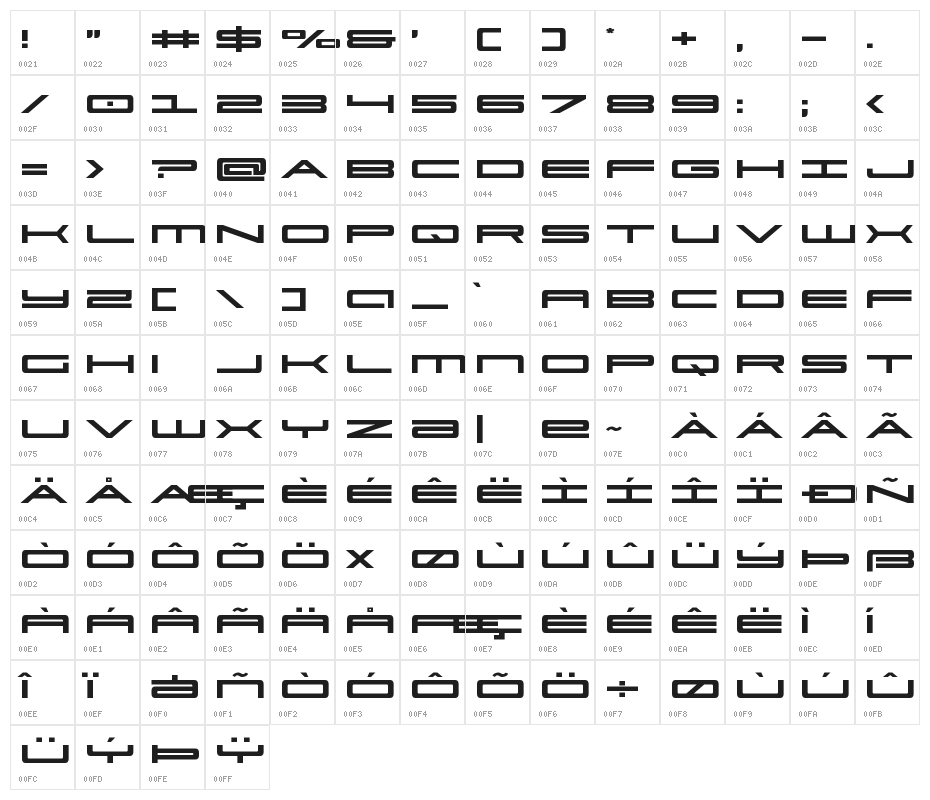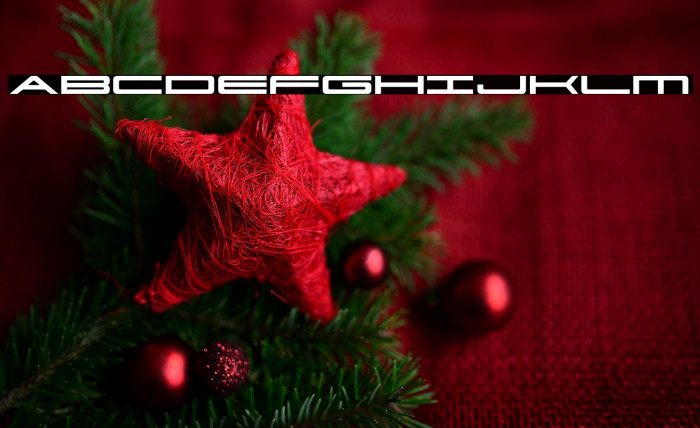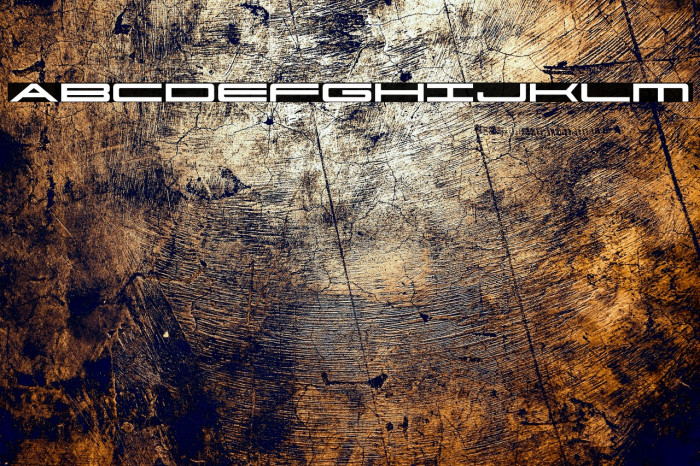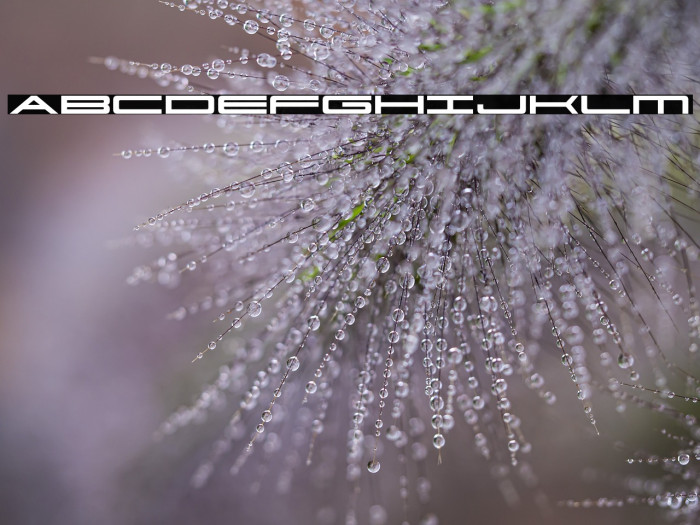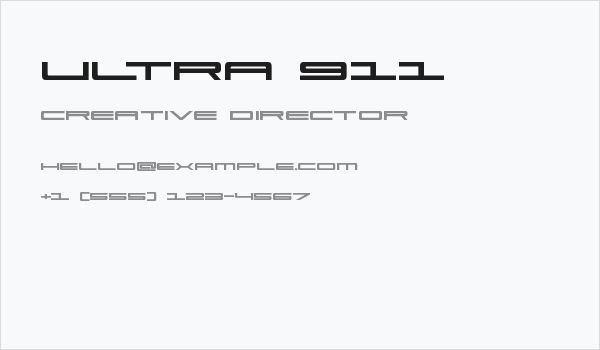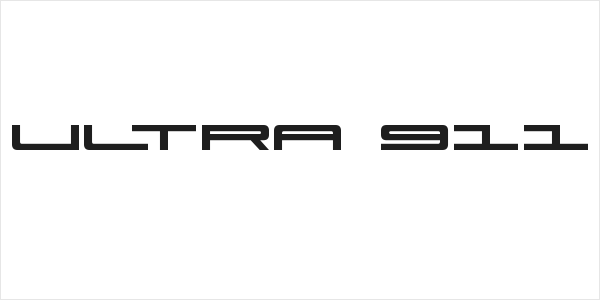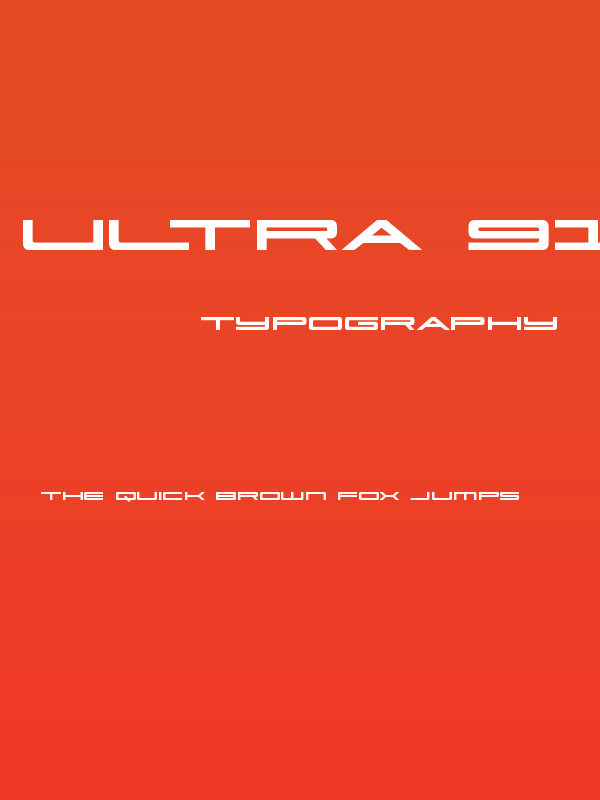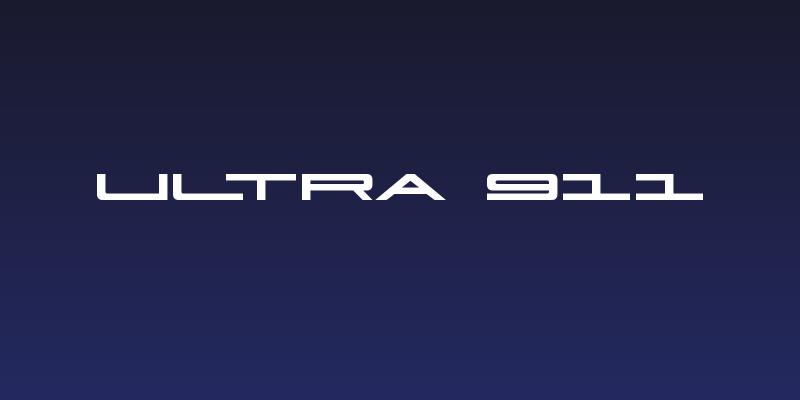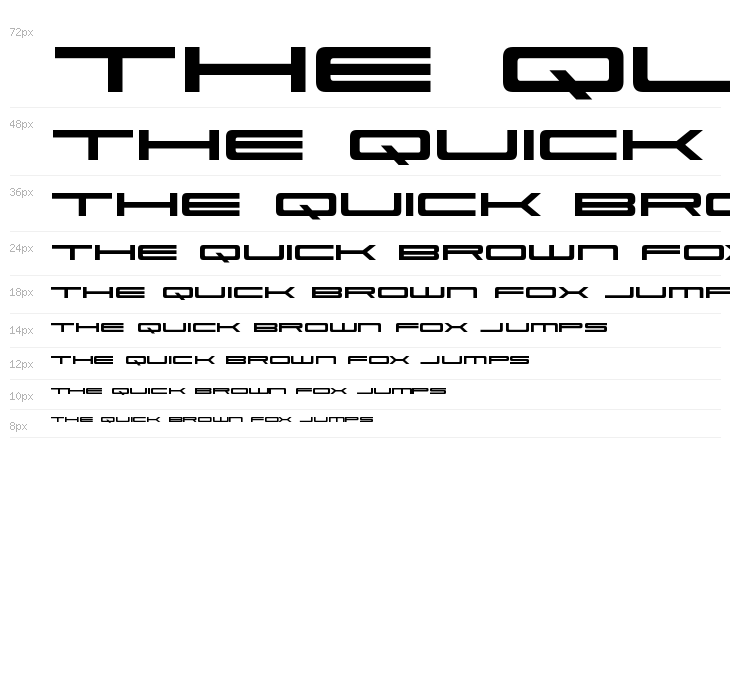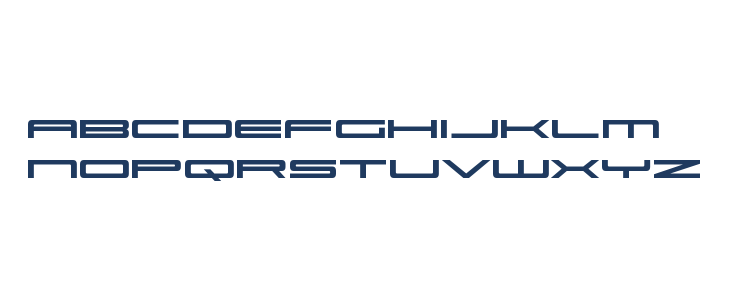
Ultra 911 Font
Ultra 911 Description
This font features a futuristic and geometric design, characterized by its sharp angles and clean lines. The uppercase and lowercase letters maintain a consistent height, giving it a uniform appearance. The numerals and special characters are designed to match the angular style, creating a cohesive look across all elements. The font's structure is sleek and modern, making it suitable for projects that require a contemporary and tech-savvy aesthetic. Its unique style is eye-catching and can be used to make a bold statement in various design contexts.
| Proposed Projects | Ideal for technology branding, sci-fi movie posters, video game titles, and modern web design. |